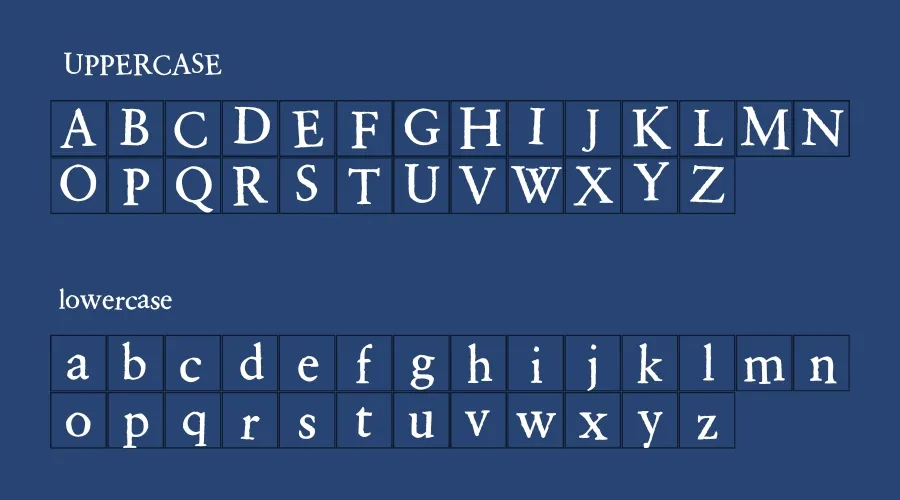
About 2peas Renaissance Font
High Logic Erwin Denissen designed 2peas Renaissance Font it is a display text style with ligatures, proportions, arrows, icons, fractions, case-sensitive forms lesser and greater commas, the font is perfect for advanced typography.
It is a display typeface. A modern, clean, and professional appearance can be seen over here. A program that can be used to create unique designs such as Adobe, Canva, or Photoshop is also suggested.